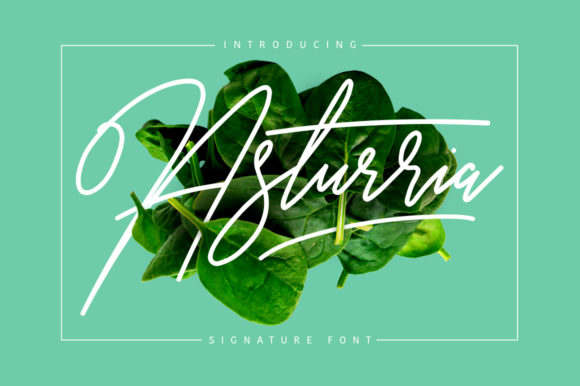
The Asturria Font: A Fresh Script Font for Creative Projects
I’ll never forget the design project that led me to discover the Asturria font. I was working on a branding project for a local craft business, and I was struggling to find the perfect font to capture their down-to-earth, artisanal vibe. That’s when I stumbled upon Asturria, a fresh script font that instantly resonated with me. Its casual charm and readability made it an instant favorite, and I’ve been hooked ever since.
An Honest Review of Asturria
• Casual charm: Asturria’s relaxed, handwritten feel makes it perfect for designs that need a personal touch.
• Readability: Even at smaller font sizes, Asturria remains clear and easy to read.
• Versatility: This font works beautifully on busy backgrounds or as a standalone headline.
• OpenType features: Asturria supports a range of OpenType features, including ligatures, stylistic alternates, and glyphs.
While Asturria is an excellent font, there are a few things to keep in mind:
• ⚠️ Limited use of all-caps: Asturria is designed primarily for use in mixed-case or title case. All-caps usage might not be as visually appealing.
• 🤔 Kerning on certain letters: As with any script font, some letter combinations might require manual kerning for optimal results.
The Backstory of Asturria
Asturria was designed with the intention of creating a fresh, modern script font that captures the essence of handwritten writing. The designer aimed to create a font that feels approachable, yet elegant, making it suitable for a wide range of creative projects.
Q: Is Asturria suitable for body text?
A: While Asturria is primarily designed for use as a display font, it can be used for body text in certain contexts. However, it’s recommended to use a larger font size (at least 14-16 points) to ensure optimal readability.